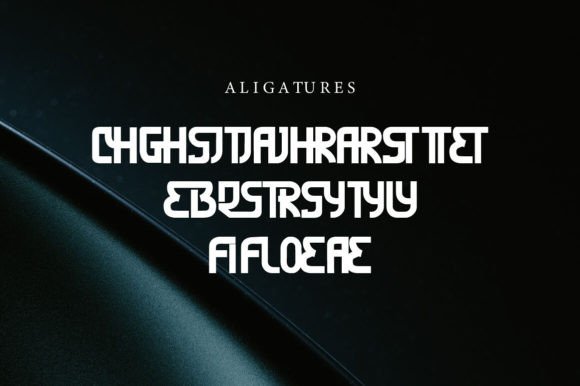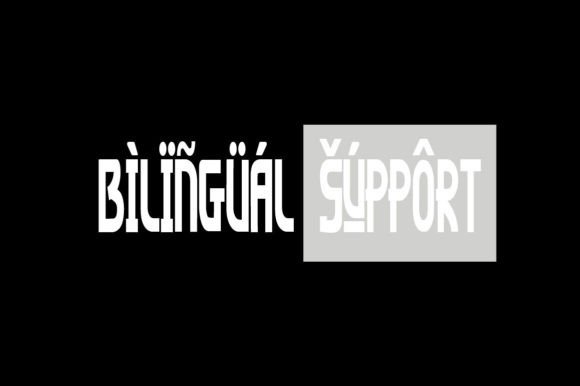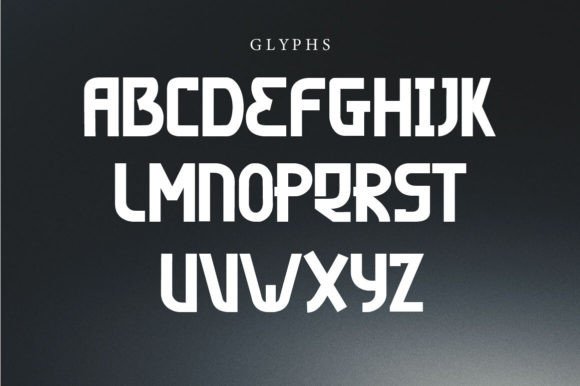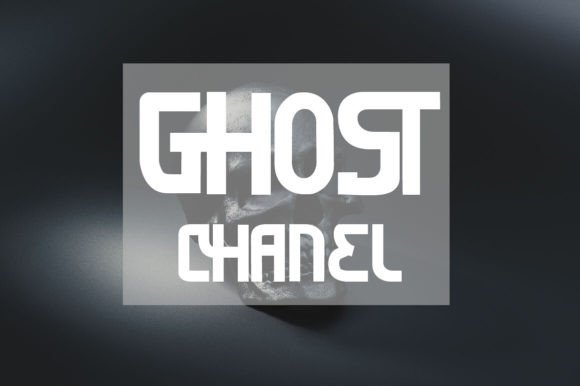
Introduction to Gelolay Font
Gelolay is a bold and assertive display font.
Key Features of Gelolay Font
Why Choose Gelolay Font?
Gelolay Font offers exceptional quality and versatility, making it a valuable addition to your design toolkit. Whether you’re creating for personal projects or commercial use, Gelolay Font delivers professional results.